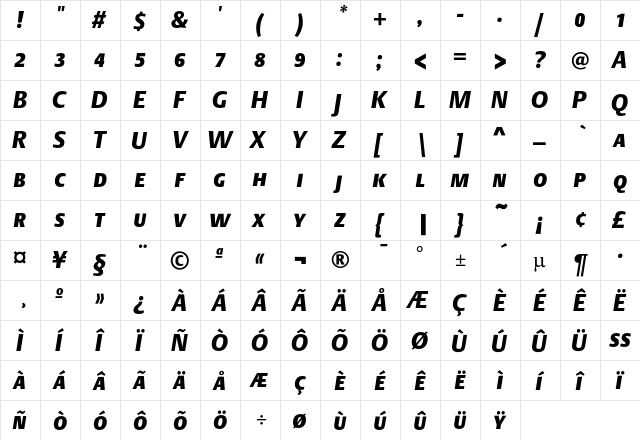
DTL Argo T Caps Black Italic
Design Context for DTL Argo Typeface
DTL Argo offers clean, dependable letterforms without strong stylistic allegiance, making it a practical choice for designers who need flexibility. The slanted form adds forward momentum and visual energy.
Pro Tip: Use DTL Argo for emphasis, pull quotes, and subheadings where its slanted energy can add rhythm to the layout.